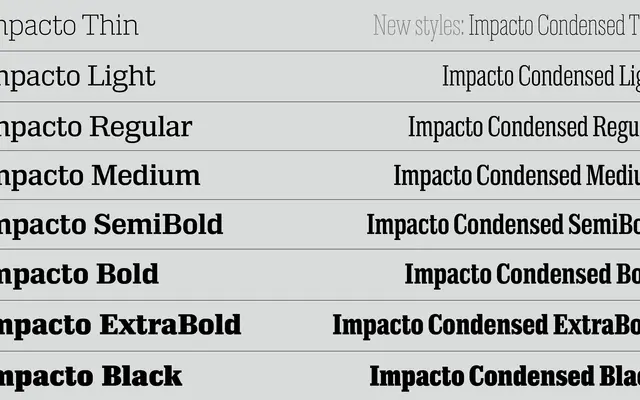
Impacto Condensed
Impacto Condensed specimen from A2-Type
A condensed display family in eight weights, drawn from machine-cut wood type and historical sans and slab specimens for high-impact headline use.
Eight weights from Thin to Black, all in a condensed cut designed to deliver maximum typographic presence on a limited surface. The reference points are machine-cut wood type and nineteenth-century sans and slab faces from historical specimens, giving it a period flavour without being a revival. Well suited to posters, covers and editorial headlines where narrow measures demand a strong vertical axis.
Drawn for high-impact display use with reference to machine-cut wood type and historical sans and slab specimens; the condensed proportions and wide weight range place it firmly in the display category rather than a functional text sans.